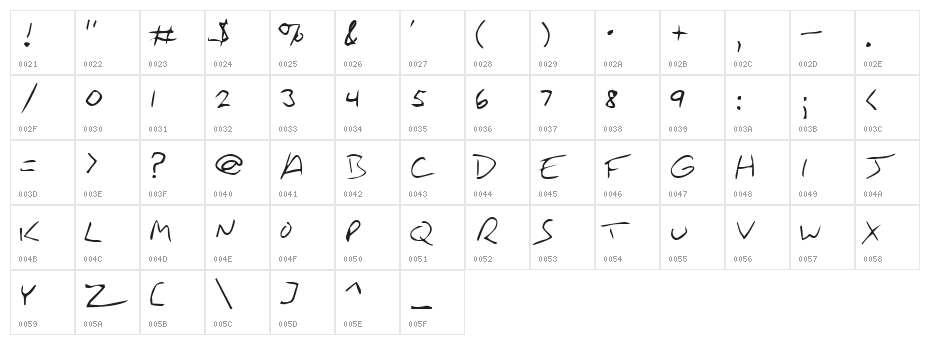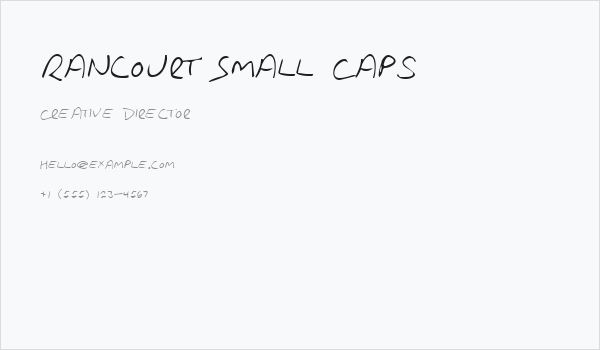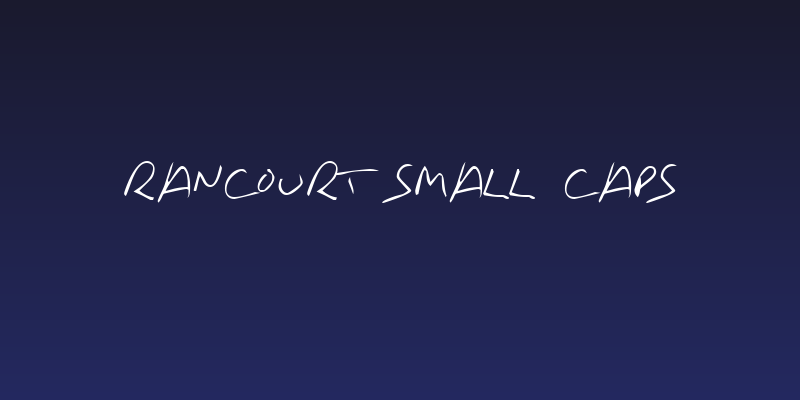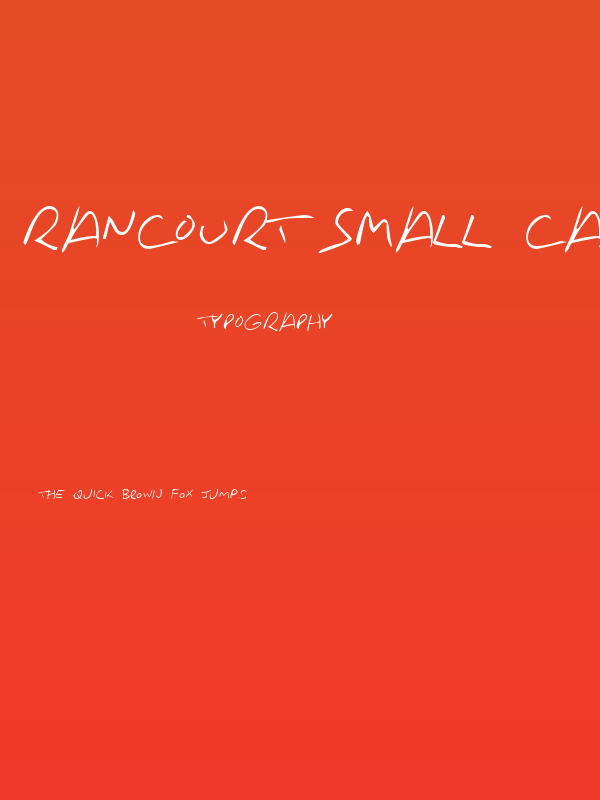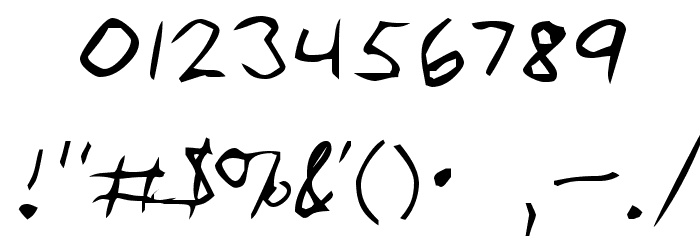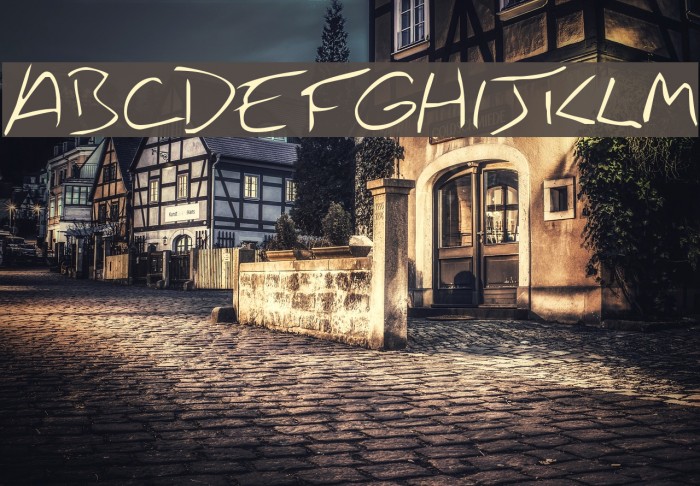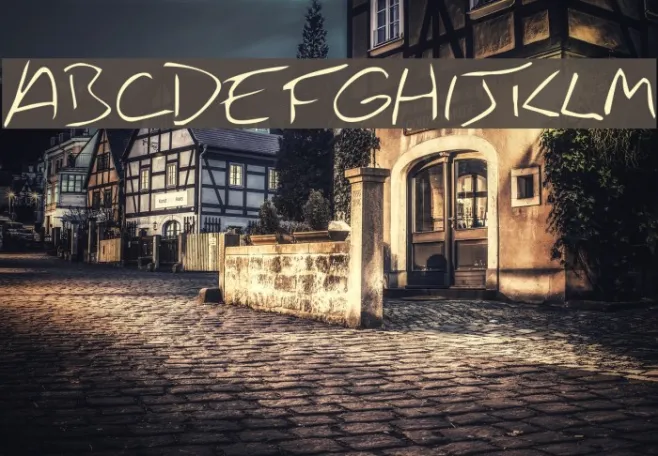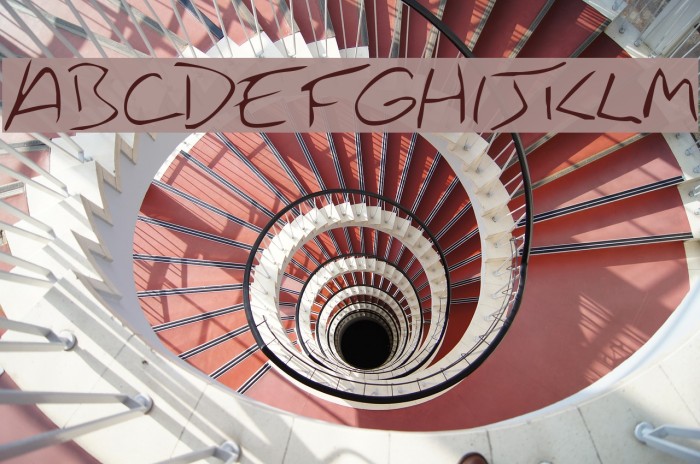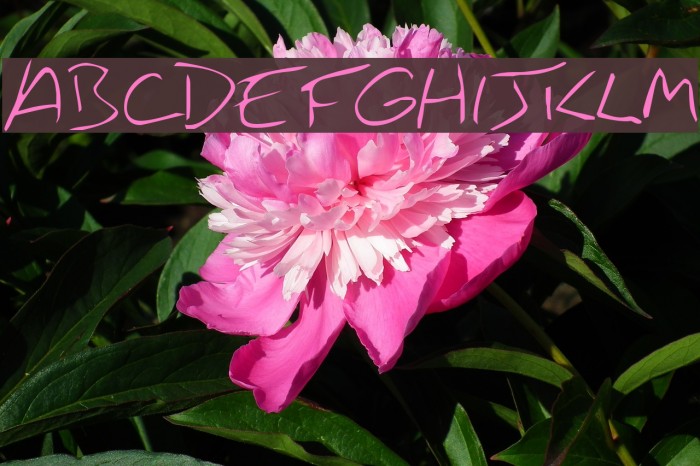
Rancourt Small Caps Font
Rancourt Small Caps Description
This font features a dynamic and expressive handwritten style, characterized by its fluid and slightly irregular strokes that convey a sense of spontaneity and creativity. The uppercase letters are bold and prominent, with a slight slant that adds to the casual and informal feel. The lowercase letters maintain the same energetic style, ensuring consistency throughout the text. Numbers and special characters are crafted with the same attention to detail, making them easily recognizable and harmonious with the overall design. This font's unique personality makes it suitable for projects that require a personal touch or a creative flair.
| Use Case | Logos, Headlines, Artistic projects |
| Proposed Projects | Ideal for creative projects such as greeting cards, invitations, artistic posters, and branding materials that require a personal and informal touch. |